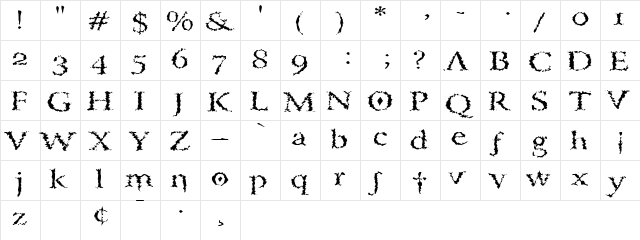
PorcupineRomanExtended Regular
Design Context for PorcupineRomanExtended Typeface
PorcupineRomanExtended is a composed and adaptable typeface that performs quietly and consistently across a wide range of design contexts.